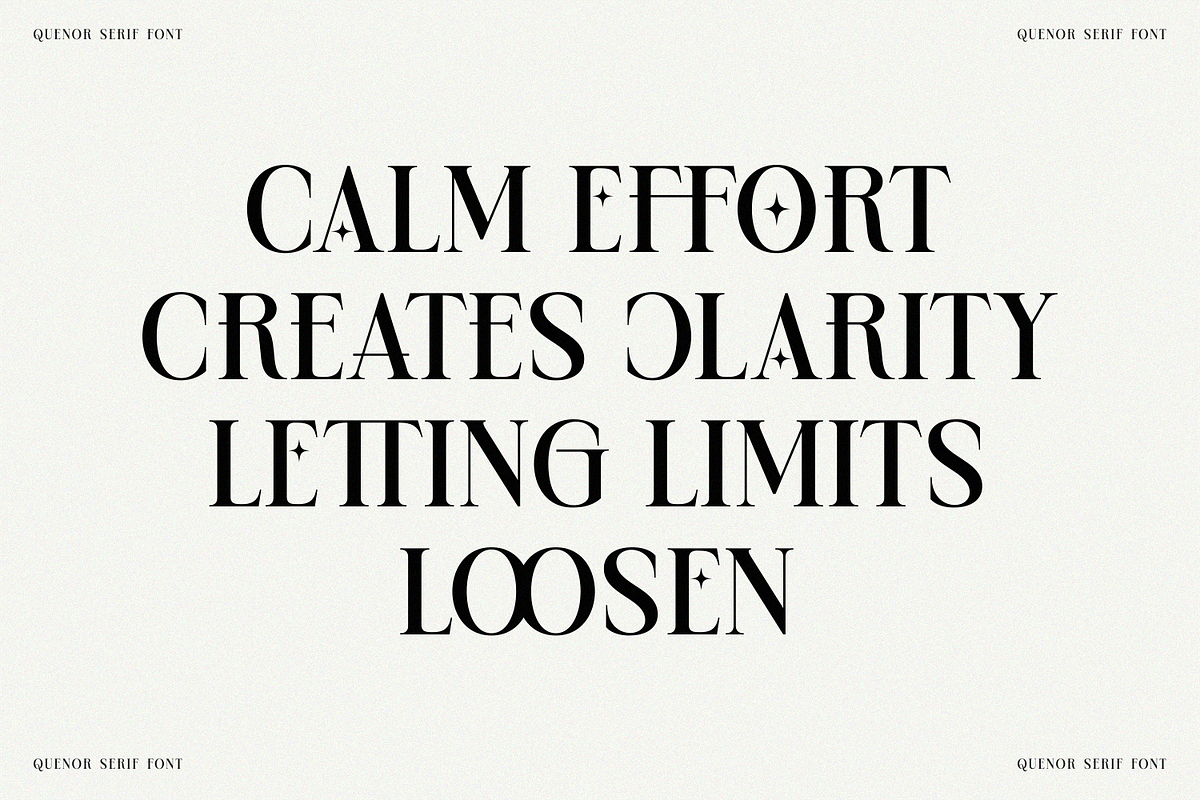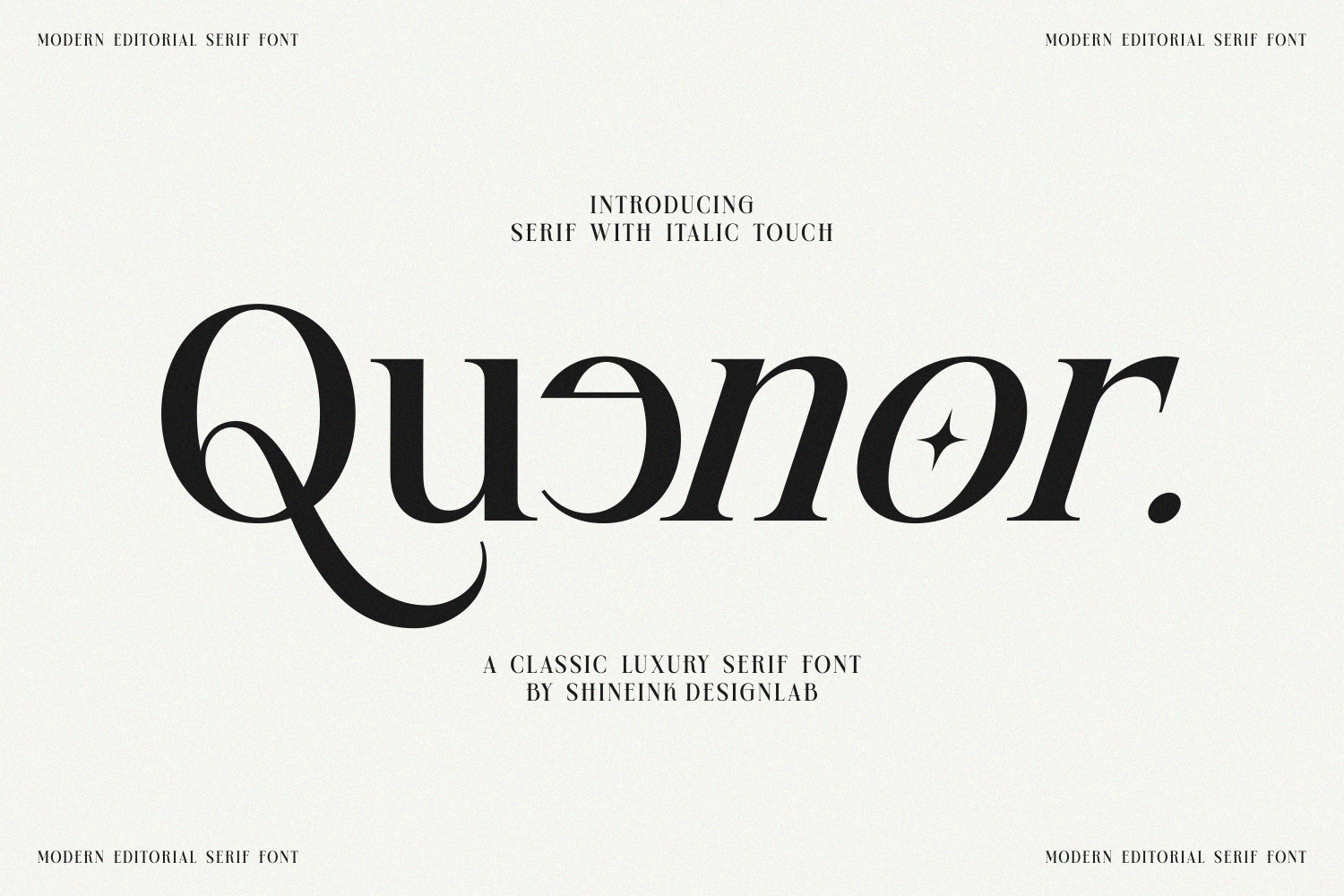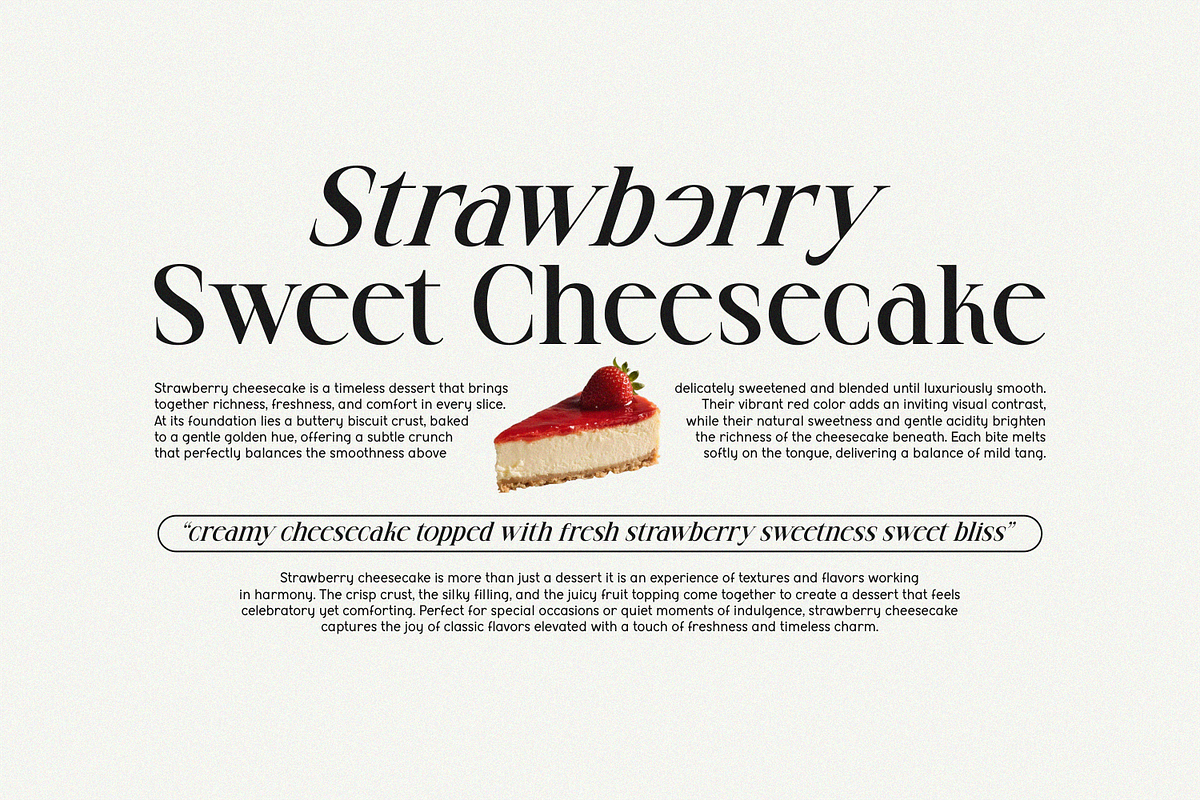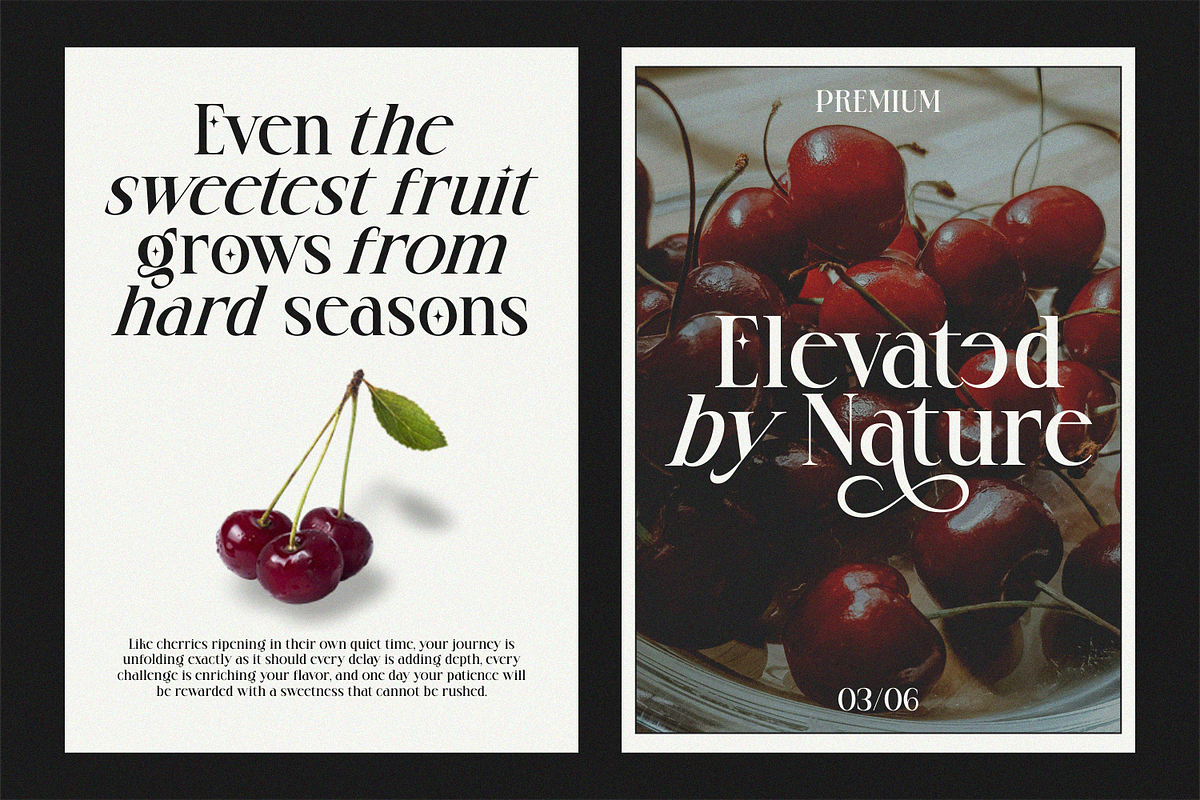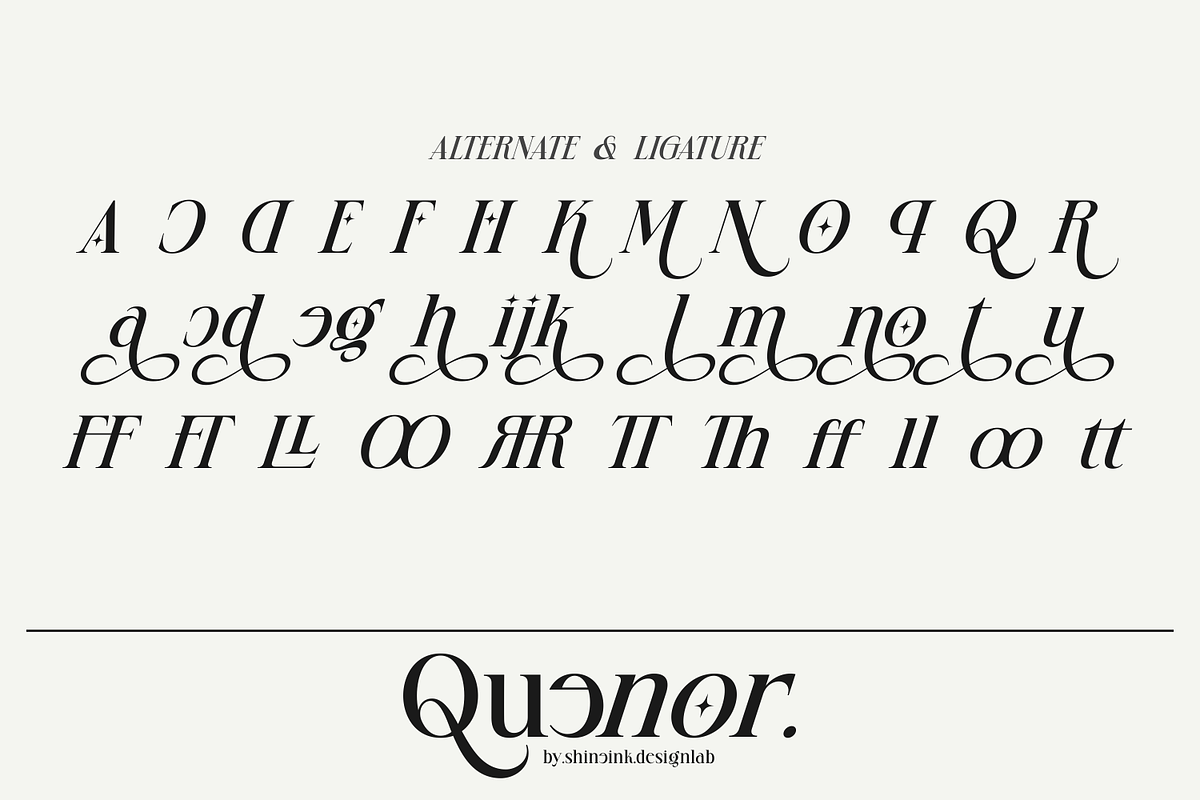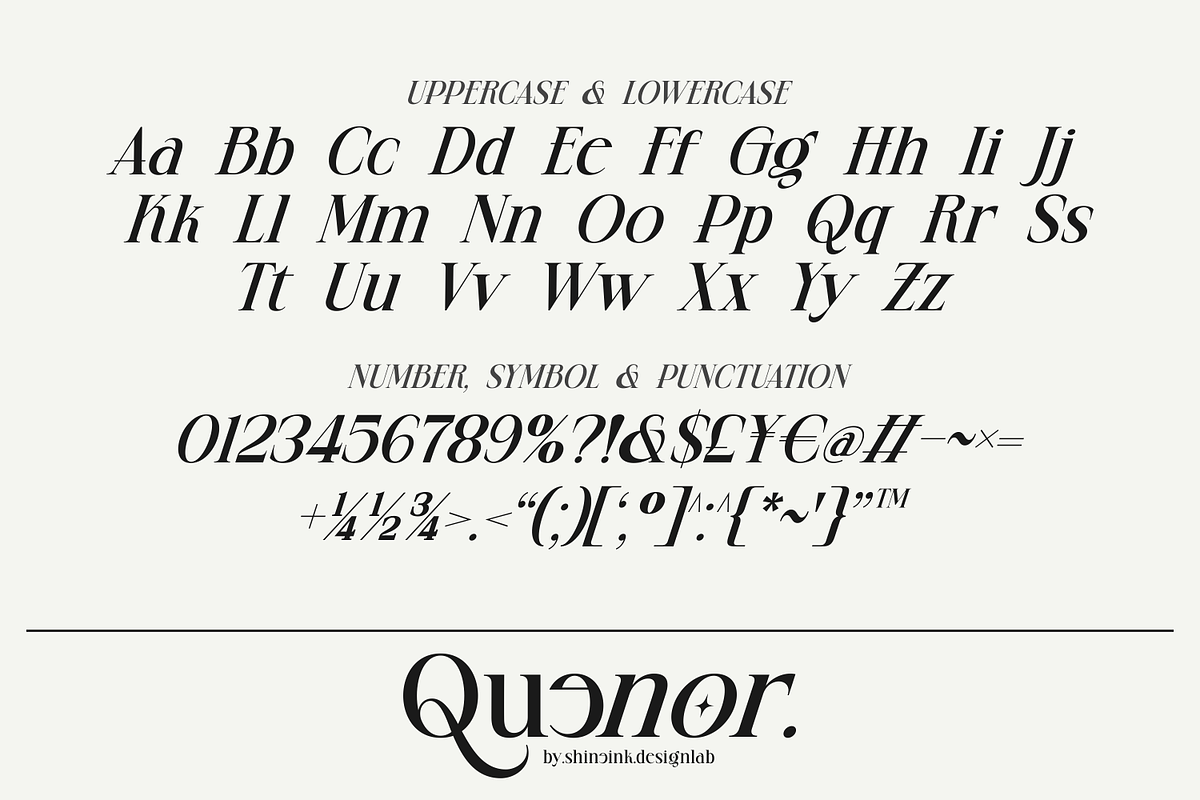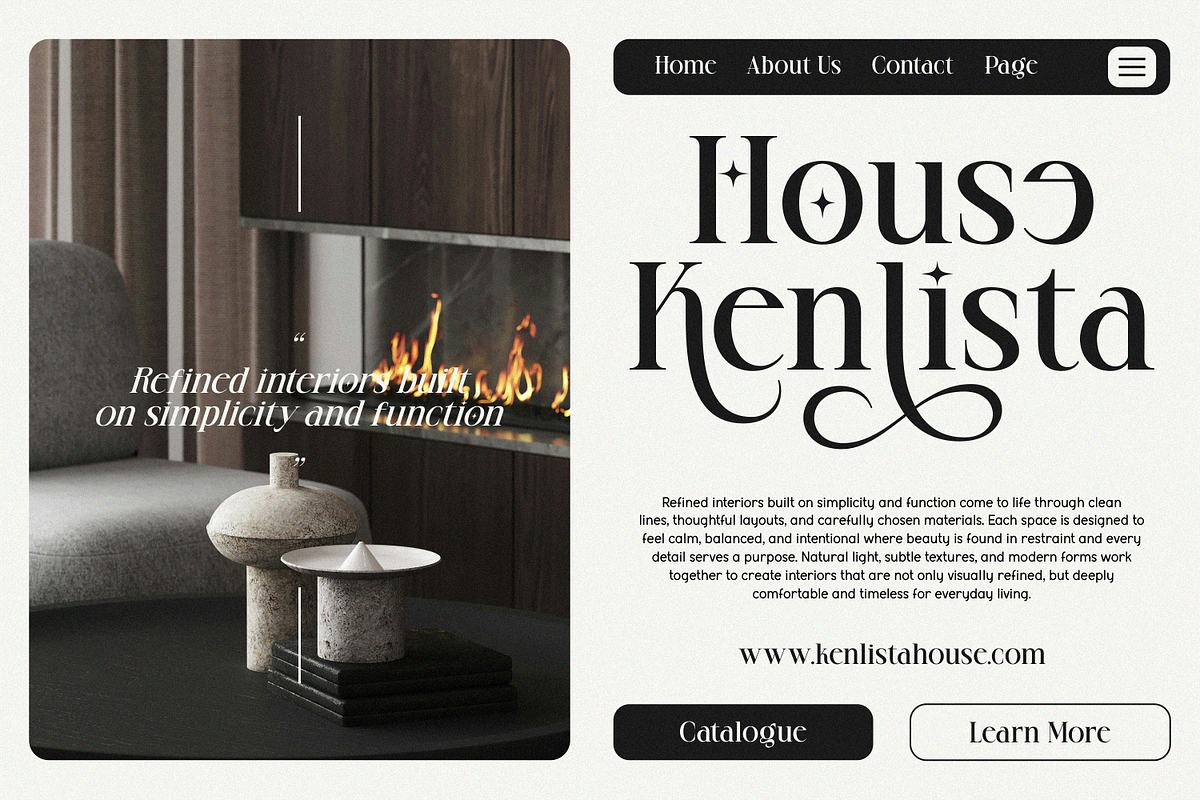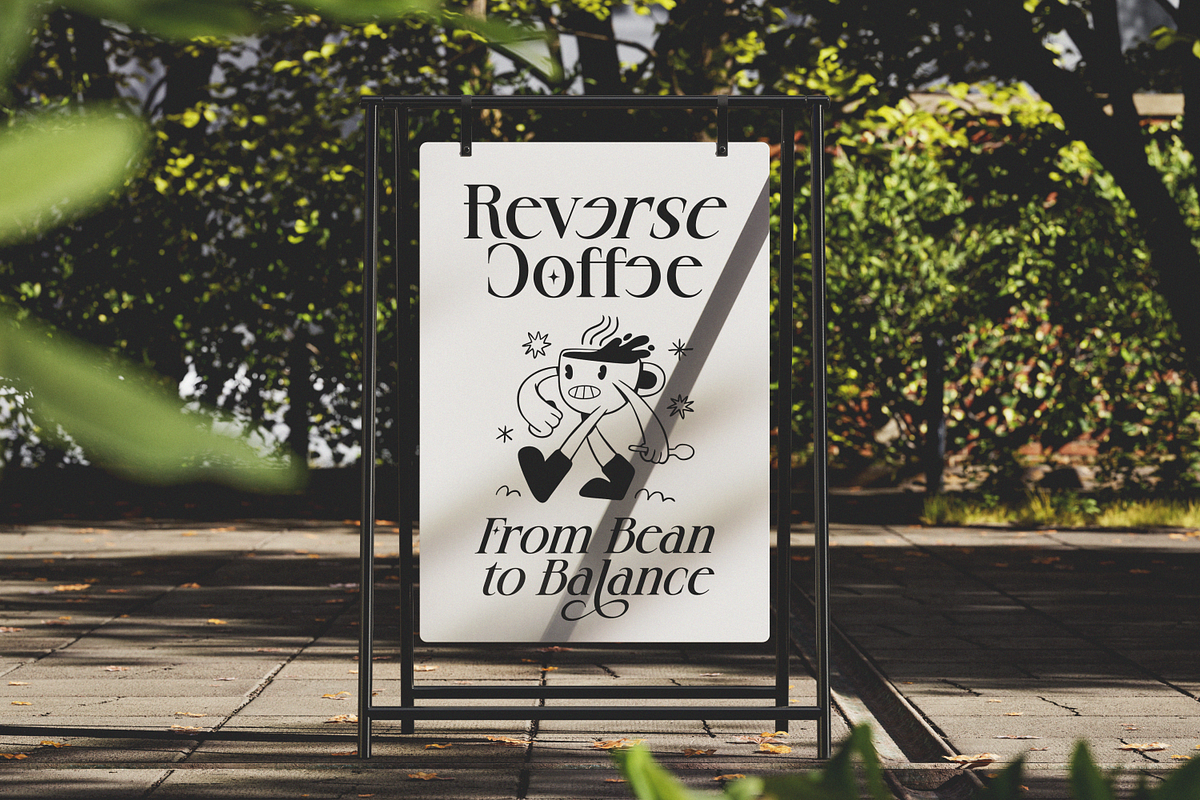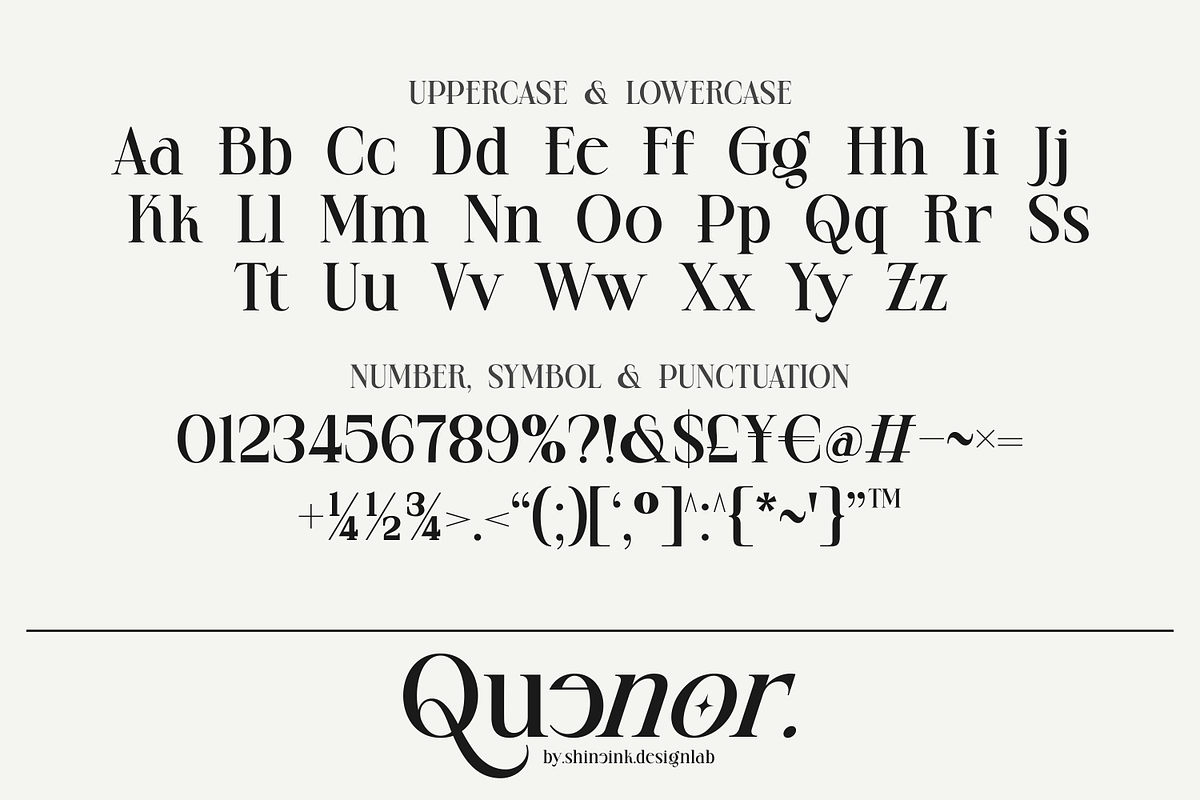
Quenor – Modern Editorial Serif Font
I'm present to you, a classic luxury serif font, called Quenor!
Quenor is a refined modern serif font duo that blends classic luxury with contemporary elegance. Designed with graceful contrasts, sharp serifs, and a smooth italic touch, this font duo delivers a sophisticated editorial feel while remaining versatile for modern design needs.
The regular serif style offers strong structure and timeless beauty, while the italic version adds a subtle expressive flow—perfect for highlighting quotes, headlines, and premium branding elements. Every character is crafted to feel confident, stylish, and editorial-ready.
Quenor works beautifully for fashion branding, magazines, luxury logos, packaging, websites, and elegant typography layouts. It’s a perfect choice for designers looking to elevate their work with a clean yet expressive serif font duo.
- Lowercase and Uppercase
- Multiple Languages Supported
- Unique Alternate & Ligature